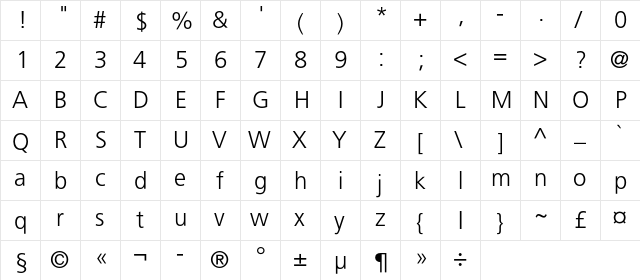
AGForeignerLightC Regular
Design Context for AGForeignerLightC Typeface
AGForeignerLightC offers clean, dependable letterforms without strong stylistic allegiance, making it a practical choice for designers who need flexibility. Its slender proportions lend an understated elegance to any composition.